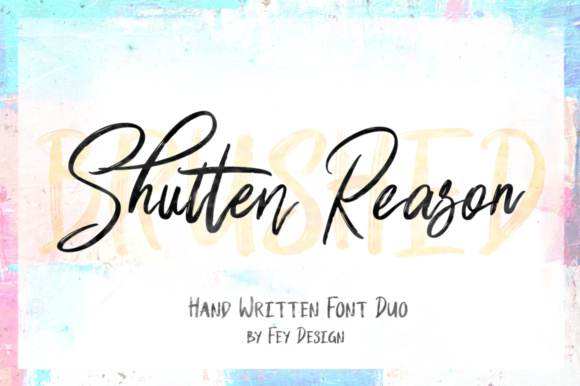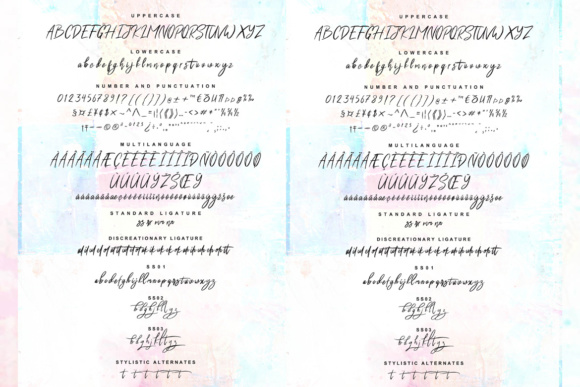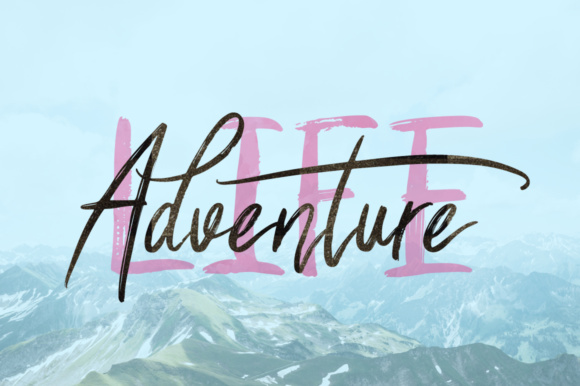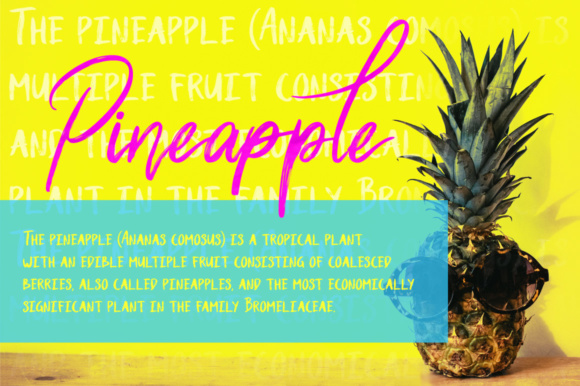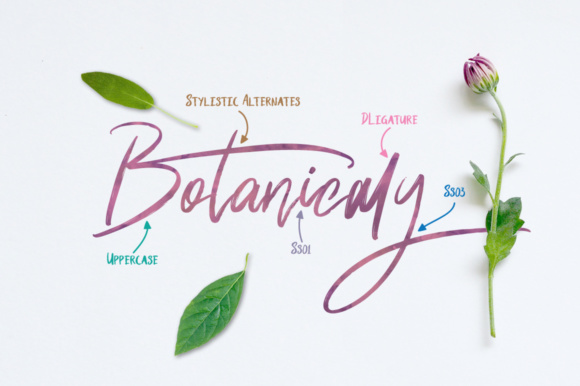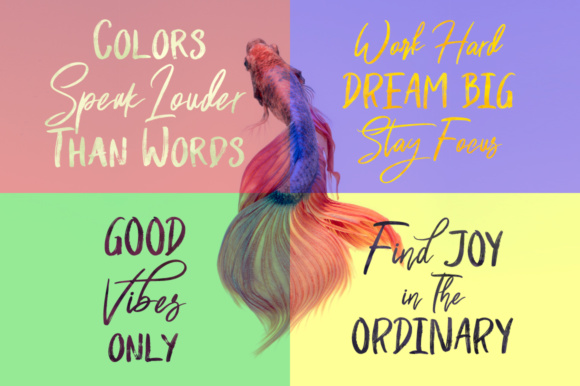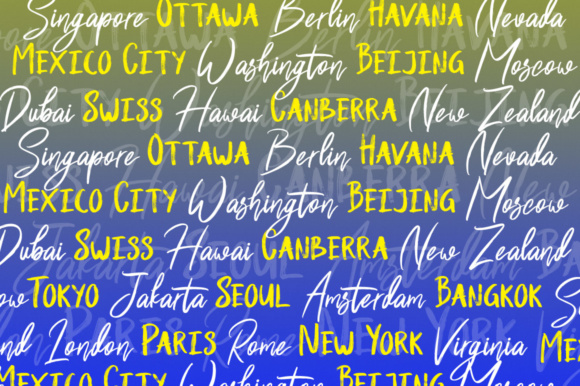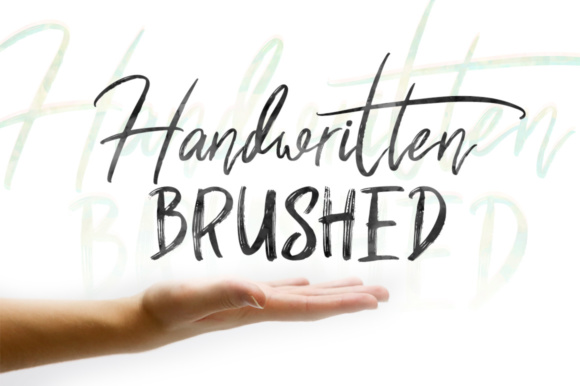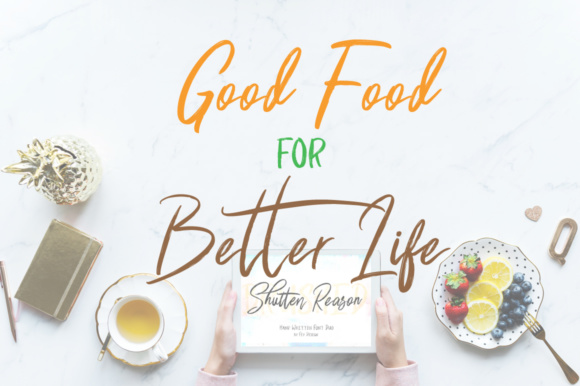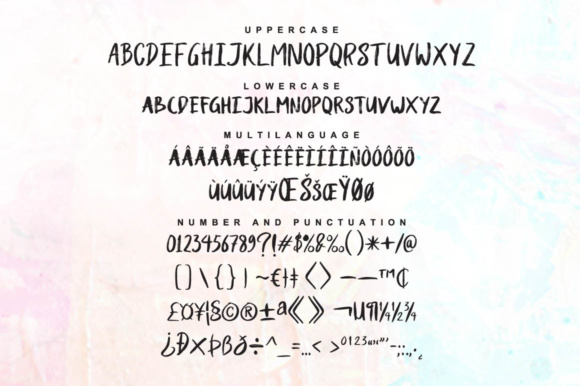
Shutten Reason Font
About Shutten Reason Font
The Shutten Reason Duo combines a handwritten brush with a stunning sans. It’s suitable for many different designs.